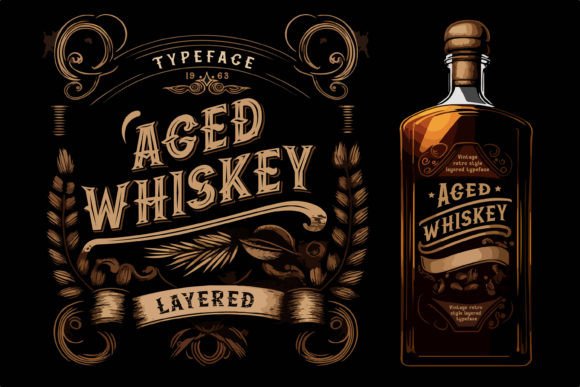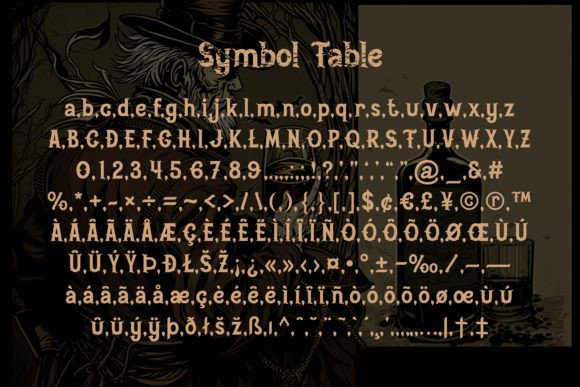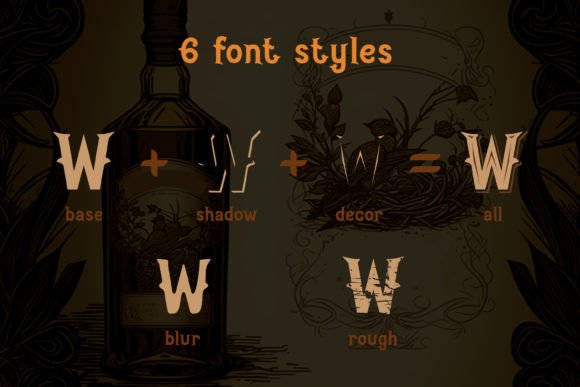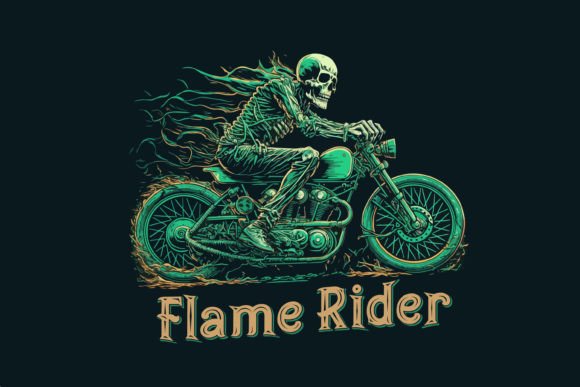
About the Aged Whiskey Font
We are excited to introduce Aged Whiskey Font, a must-have typeface for any serious designer. The Aged Whiskey font is made in an old vintage style, it is well-suited for labels, headings, logos, and illustrations. Also, as a bonus, a set of various illustrations for T-shirts using this font is included, in eps and png format.
Aged Whiskey’s vintage style shines in headlines, logos, and short text blocks for branding projects evoking nostalgia or a handcrafted feel. It’s ideal for whiskey labels, craft beer packaging, or retro-inspired posters. However, its highly decorative nature makes it unsuitable for body text or UI elements where readability is paramount.
Consider pairing Aged Whiskey with a clean sans-serif like Montserrat for contrast, or a subtly textured serif like Playfair Display for a more unified vintage aesthetic. A simple geometric sans-serif could also work well to modernize the overall feel.
The font projects a bold, classic, and slightly rugged personality, suitable for brands emphasizing heritage, quality, or a timeless appeal. Avoid using it for projects needing a modern, minimalist, or overly playful feel.